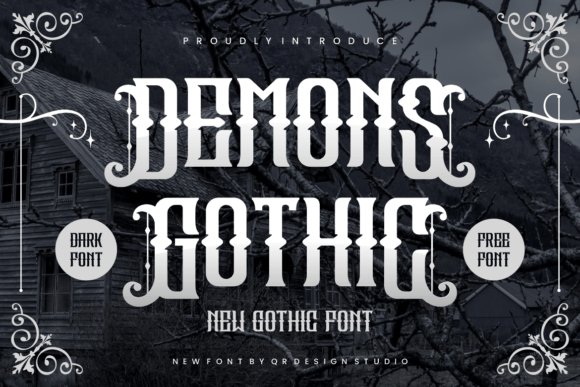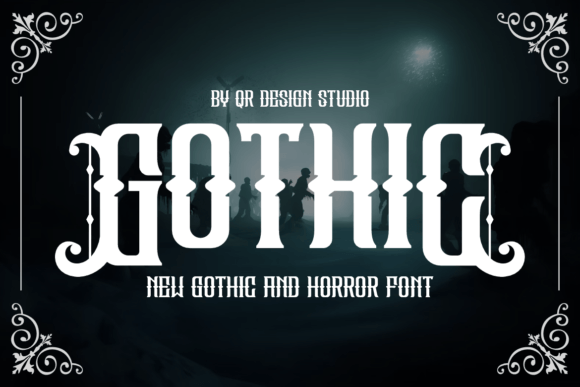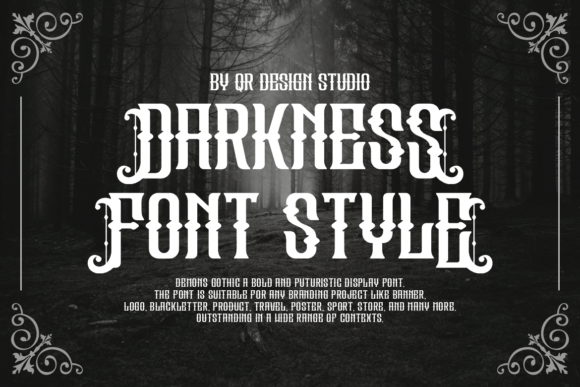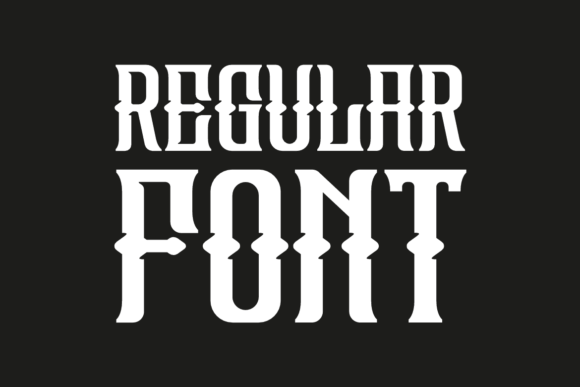
Demons Gothic Font: A Bold Display Font for Dark & Metal Logo Design
About the Demons Gothic Font
Get ready to be inspired by Demons Gothic Font, a fresh and dynamic typeface for modern creators. Demons Gothic Font is a bold and authentic display font.
The font is suitable for any branding project like poster, gothic, black style, dark style, metal, logo, sport, and many more.
Outstanding in a wide range of contexts.
Demons Gothic excels as a display font for headlines, logos, and short, impactful text within posters and branding materials for edgy or rebellious brands. Its strong, bold forms are ideal for conveying power and attitude. However, its condensed nature and high x-height make it less suitable for body copy or UI elements requiring high readability over extended text.
Consider pairing Demons Gothic with a clean sans-serif like Montserrat for a balanced contrast, or a more refined serif such as Playfair Display for a sophisticated juxtaposition. For a bolder statement, a geometric sans-serif such as Futura might work well. Avoid pairing it with overly decorative or script fonts which could diminish its impact.
The font’s overall personality is assertive and dramatic, making it a powerful choice for projects requiring a bold visual presence. Its gothic style evokes a sense of mystery and intrigue, lending itself well to brands seeking a dark, rebellious, or high-energy aesthetic.
Demons Gothic Font Usage Examples
Demons Gothic Font Example